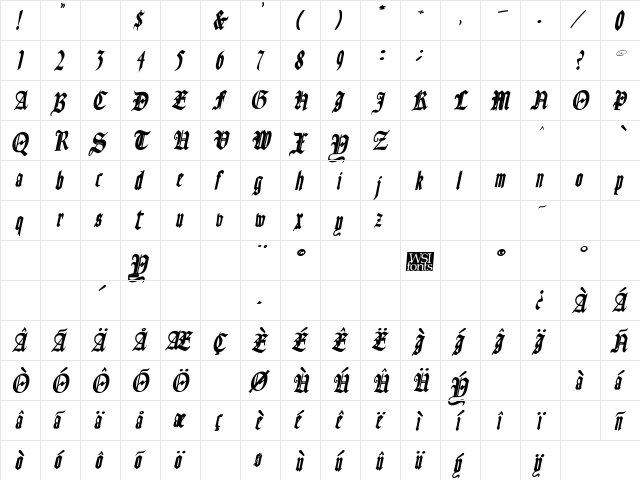
Fains Bold Italic
Design Context for Fains Typeface
Fains is a composed and adaptable typeface that performs quietly and consistently across a wide range of design contexts. The slanted form adds forward momentum and visual energy. Its bold stroke weight gives it real presence on the page.